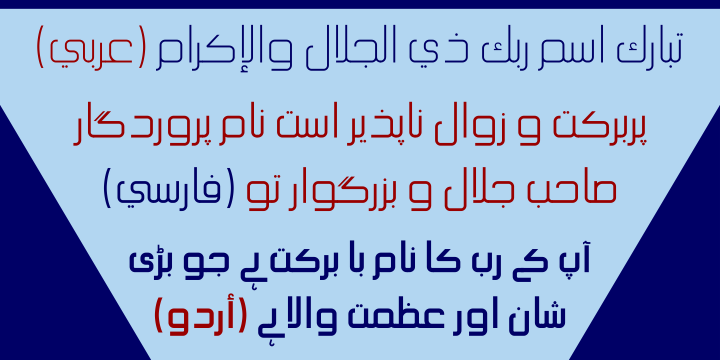
Hasan Ghada Square is a developed version of Hasan Ghada with a square feel. It supports Arabic, Persian and Urdu. Hasan Ghada Square is an Arabic display typeface. It is useful for titles and graphic projects. The font is based on the simple lines of Modern Kufi calligraphy with new ideas for square shapes and geometric feel.